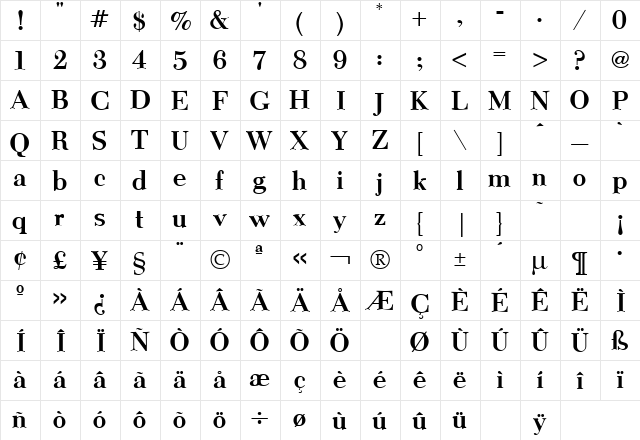
Camelia Bold
Design Context for Camelia Typeface
Camelia takes a measured approach to typography — its balanced proportions and neutral character make it a reliable workhorse for both digital and print work. The heavy weight commands attention and anchors typographic hierarchies.